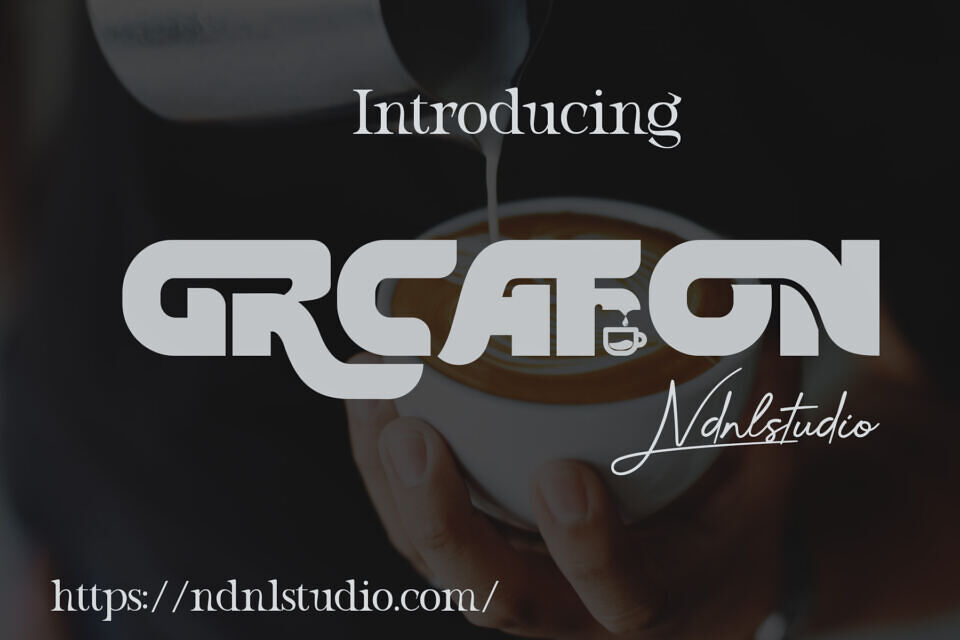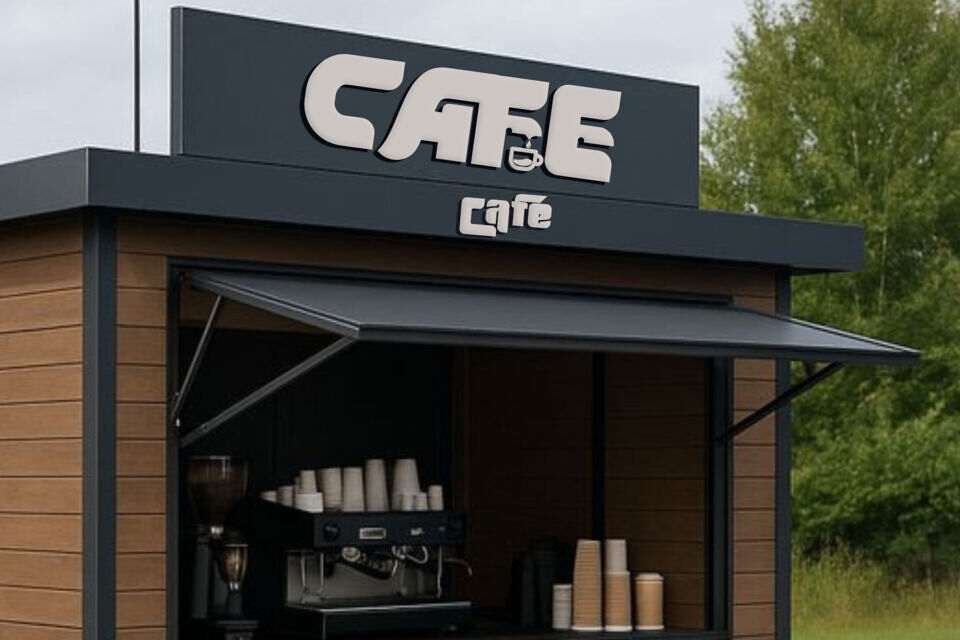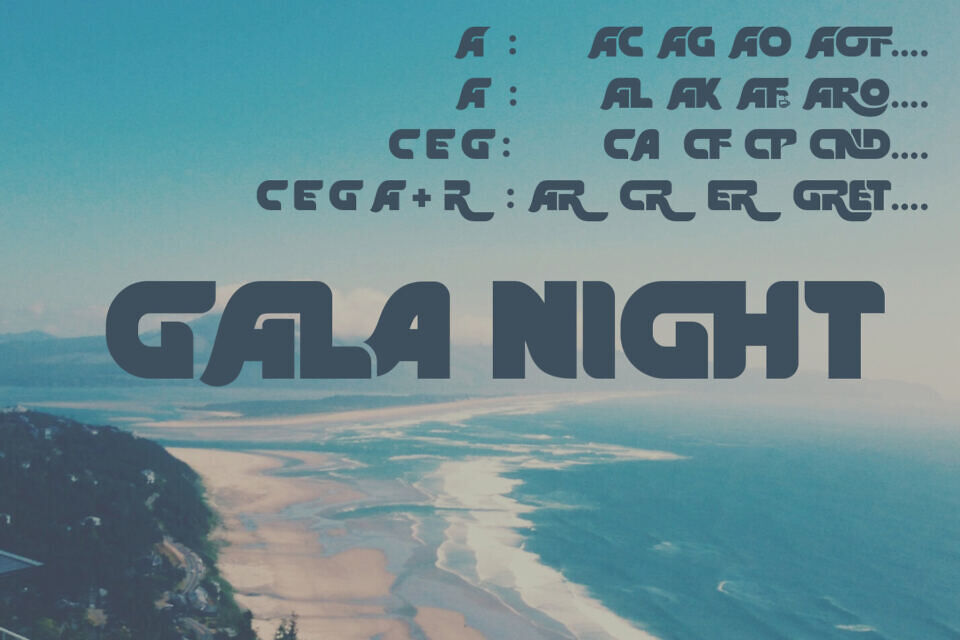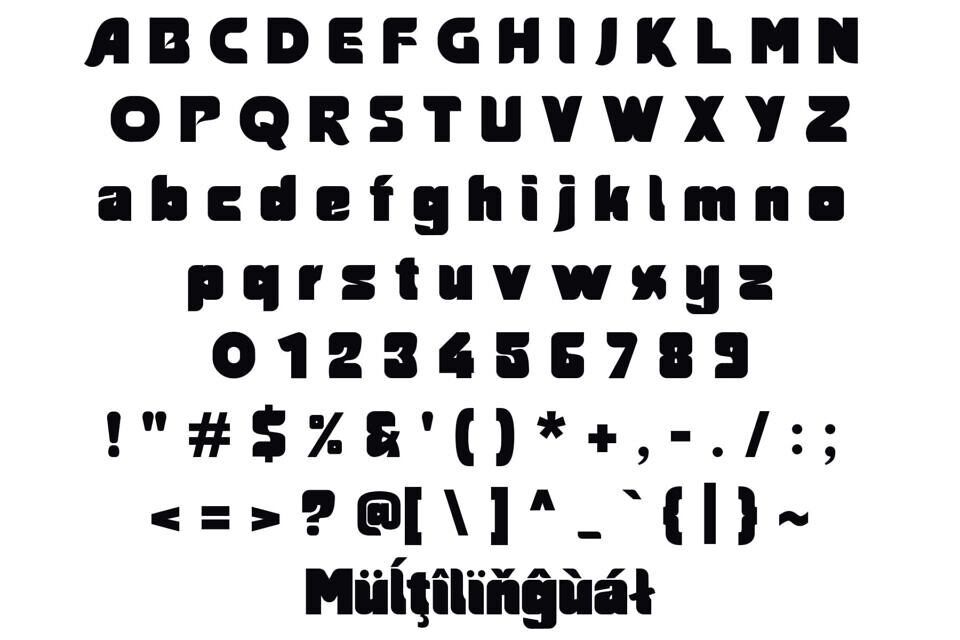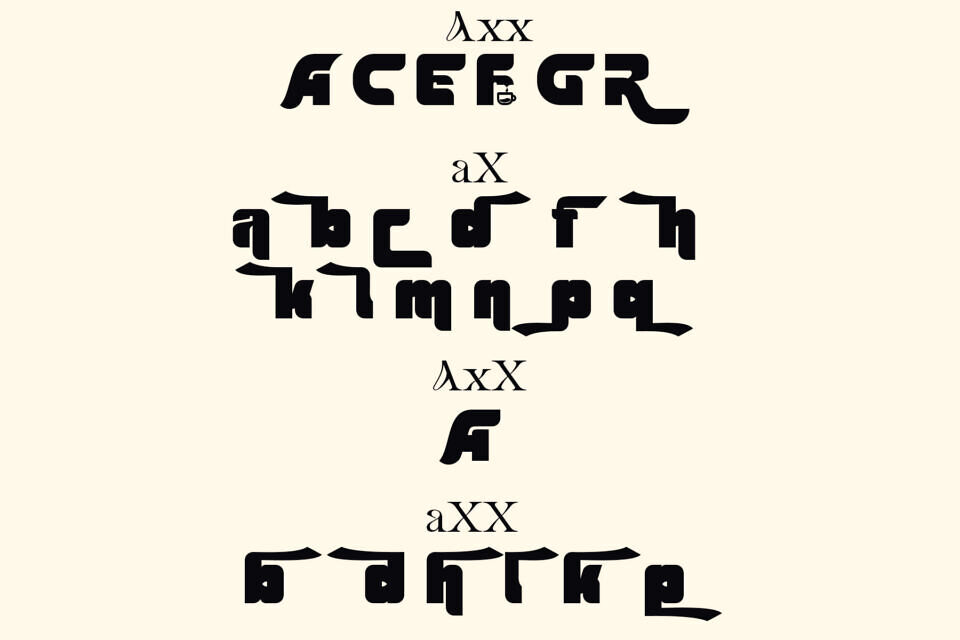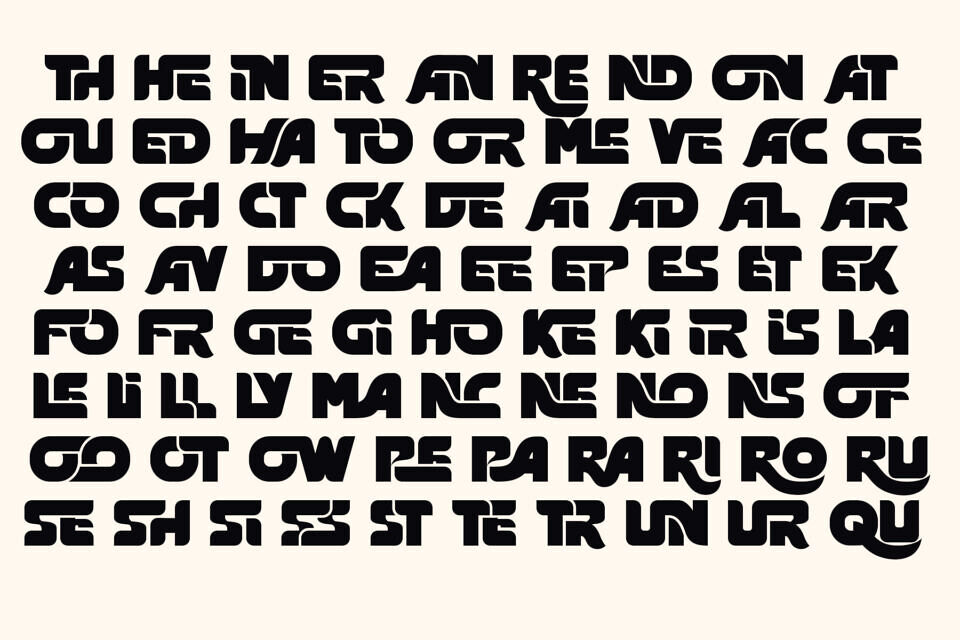
Grcafon Font
Grcafon Font is a unique geometric typeface defined by bold forms and clean modern shapes. With its strong visual weight and futuristic styling, it brings a striking identity to any project.
Inspired by the atmosphere of contemporary coffee culture, Grcafon delivers an energetic and stylish look that stands out instantly. Ideal for coffee branding, menus, packaging, signage, and any design that embraces an urban, creative spirit.